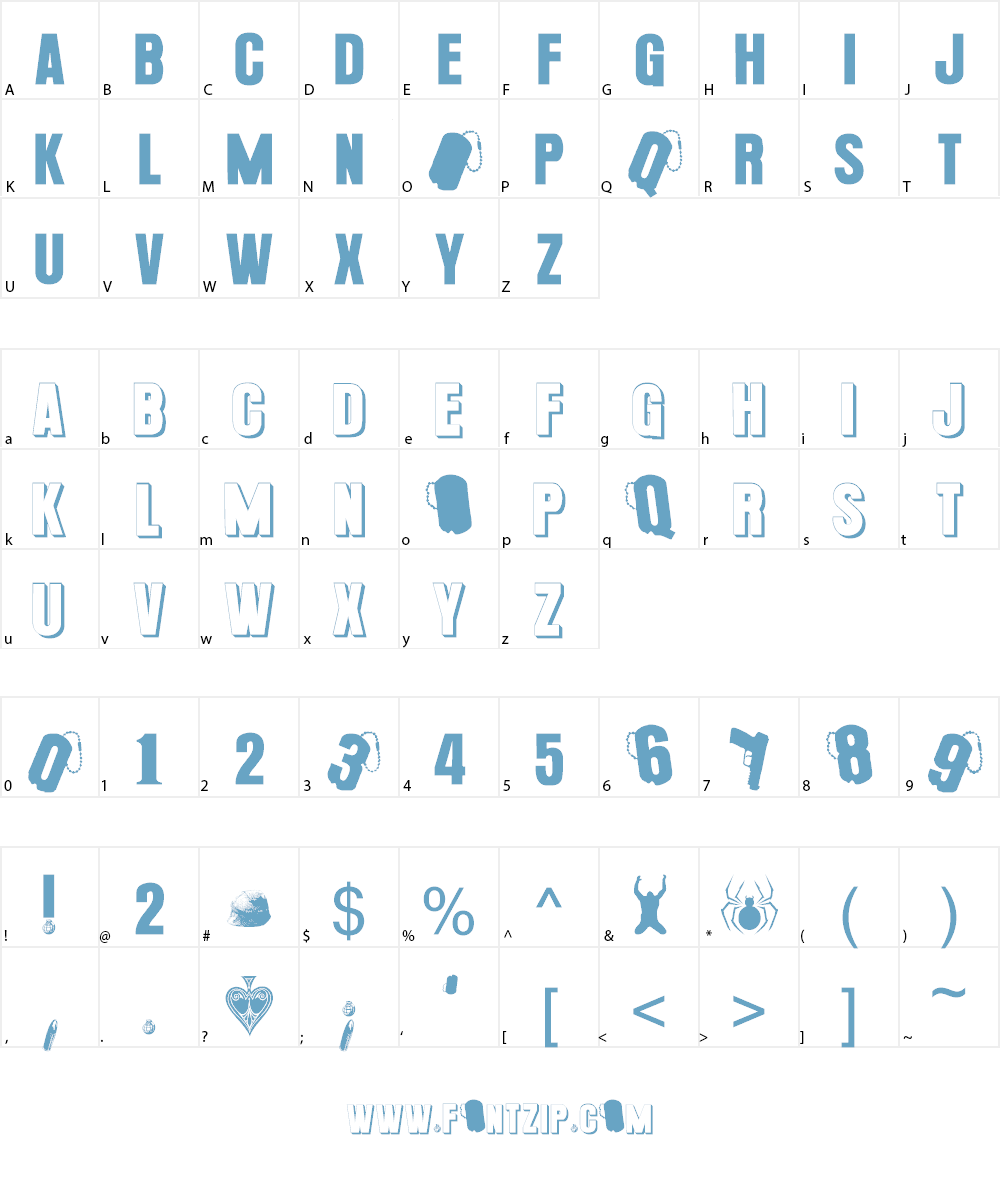
I always loved two Dog Tag's that created the double O in the logo with a metal effect so I decided to pay homage to PLATOON, one of the first proper war movies. Full Metal Jacket is a close second ;)